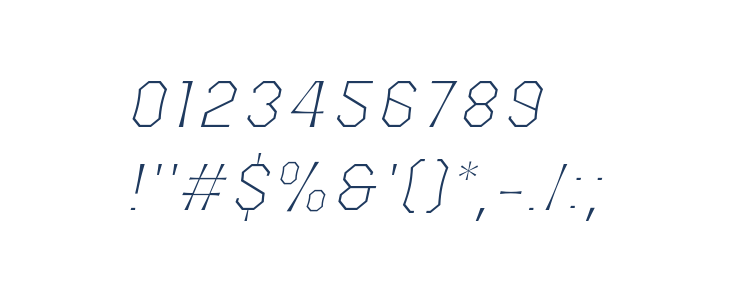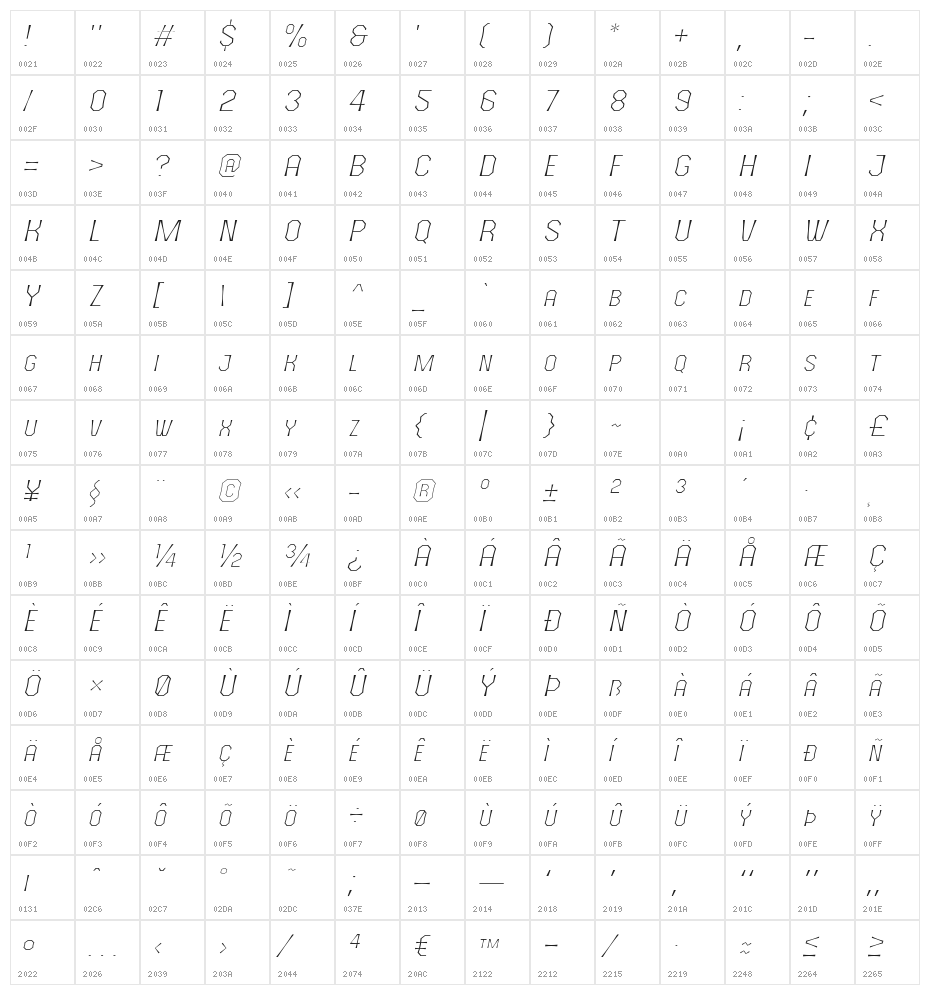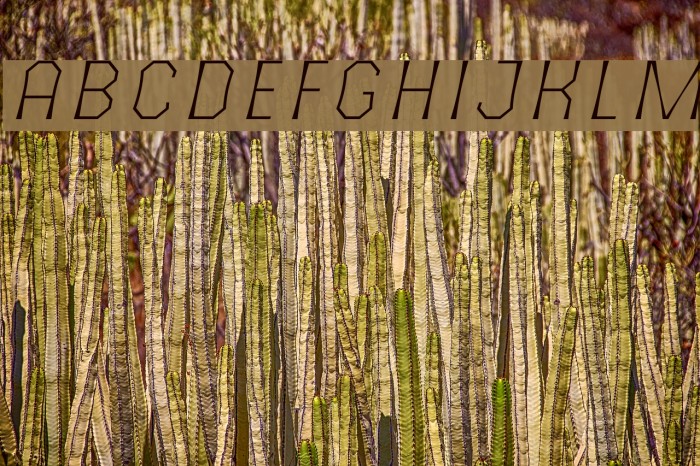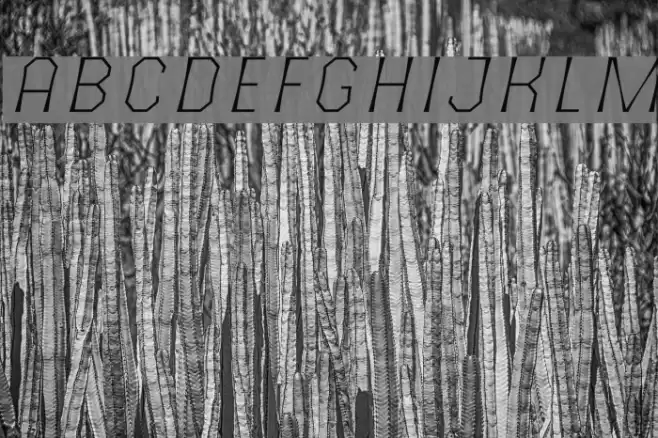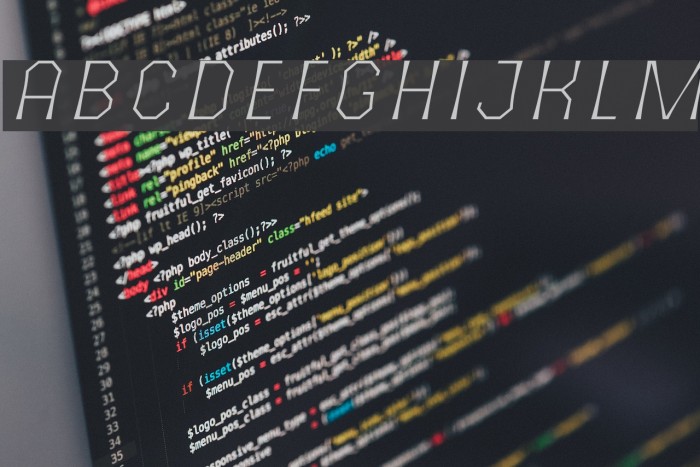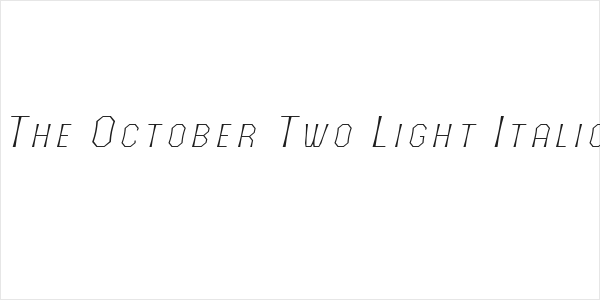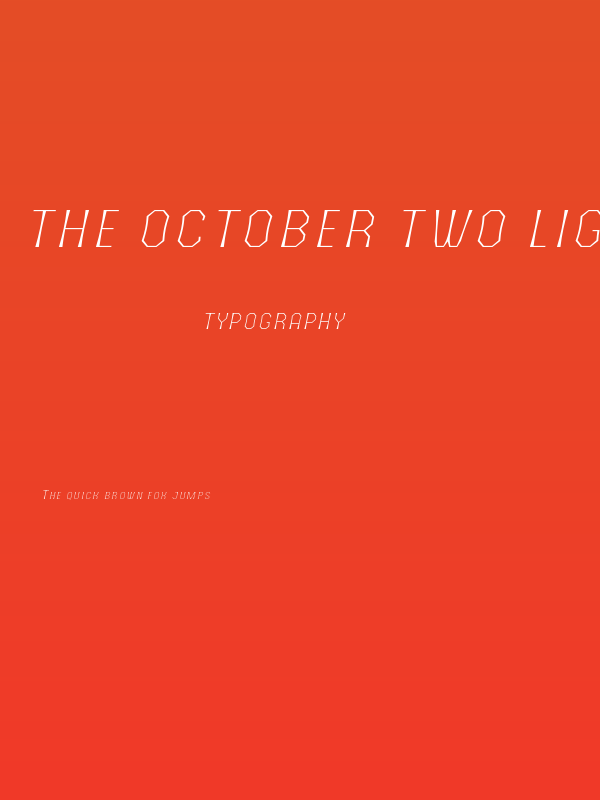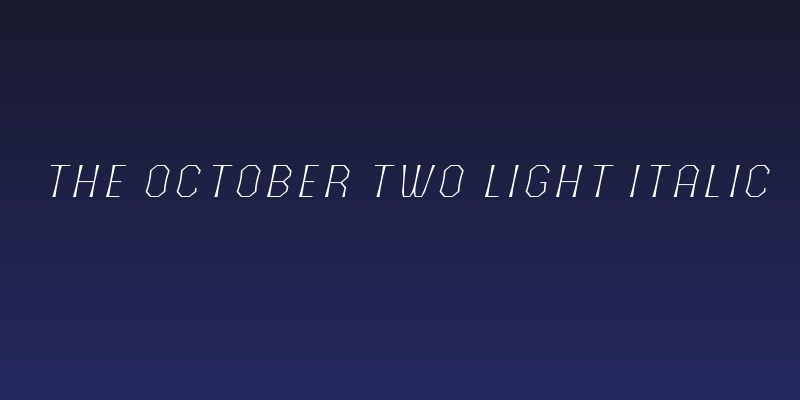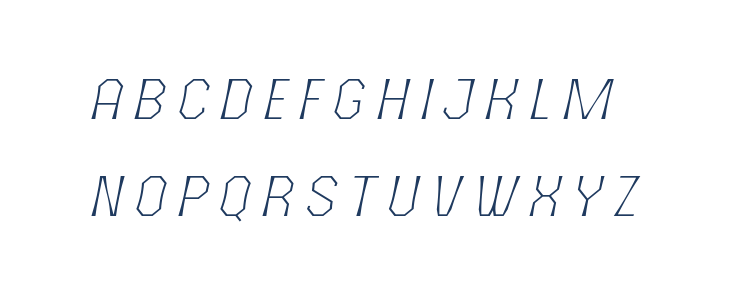
The October Two Light Italic Font
The October Two Light Italic Description
This font features a modern, geometric style with a light and italicized appearance. The characters are constructed with clean, angular lines, giving them a distinct, futuristic look. The uppercase and lowercase letters maintain a consistent slant, enhancing the italic effect. The numerals and special characters follow the same design principles, ensuring uniformity across the typeface. The overall design is sleek and minimalistic, making it suitable for contemporary design projects.
| Proposed Projects | Ideal for tech branding, modern posters, or digital interfaces. |